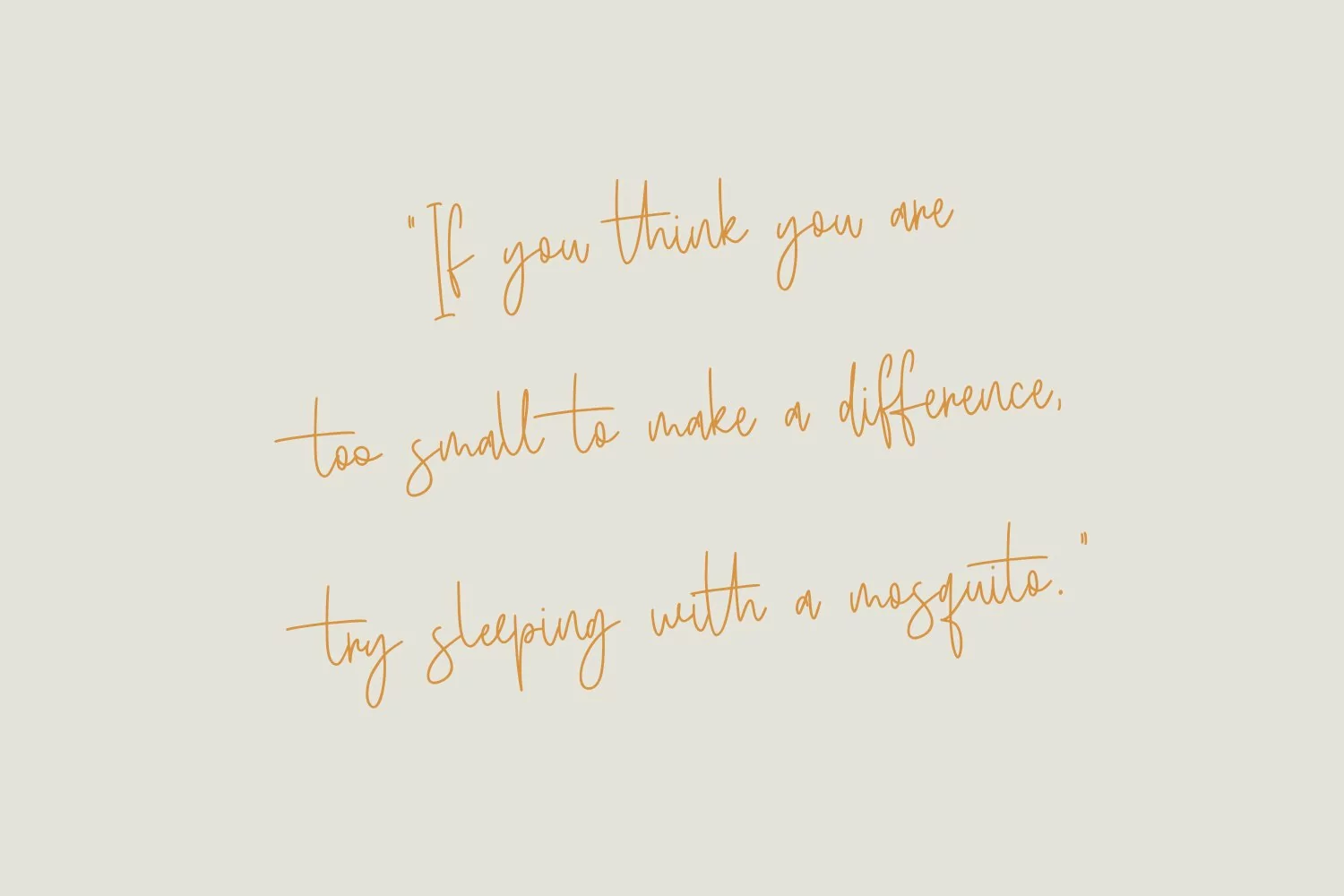
Sunnycyclops is a Handwritten script font it's monoline and clean stroke with fun character. It has Opentype features ligature rich to give you an extra creative work. Sunnycyclops support multilingual more than 100+ language. This font is good for logo design, Social media, Movie Titles, Books Titles, a short text even a long text letter and good for your secondary text font with sans or serif. Make a stunning work with Sunnycyclops Handwritten font.